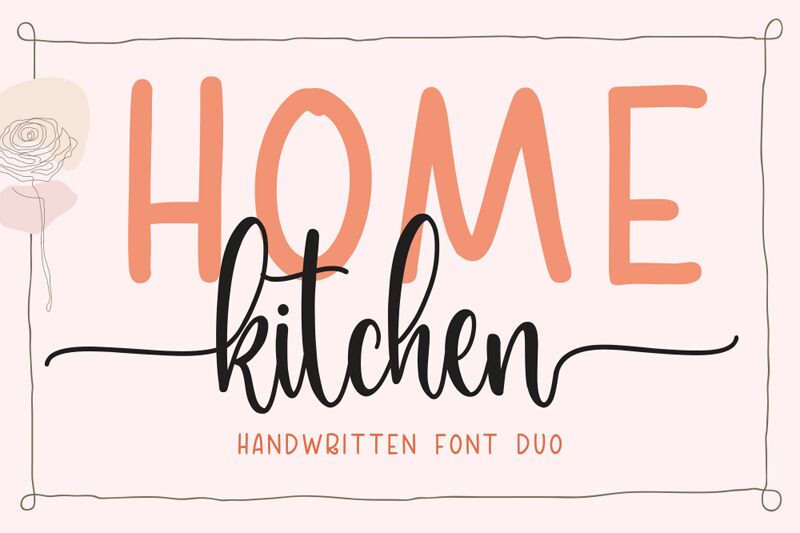
Home Kitchen Script font by Mozatype is a free handwritten font with elegance and a touch of modernity. With its cohesive and approachable characters, the typography beautifully combines stylistic features to resemble the personality of hand-made typography for straightforward, informal writing. Home Kitchen Script is informal enough to fit with personal use and personal branding designs, such as assets for social media, YouTube, Shopify, Etsy, or even blogs and personal projects.
Its approachable, warm nature makes Home Kitchen Script adaptable to several design styles and is suitable for product packaging, concert posters, books, notebook covers, and many more. It’s particularly great for artistic and unconventional projects which would benefit from the font’s vibey stylistics.